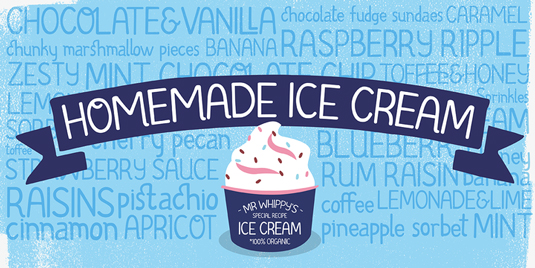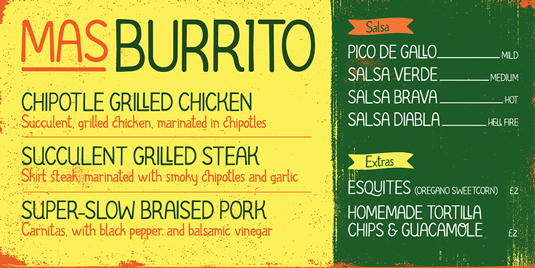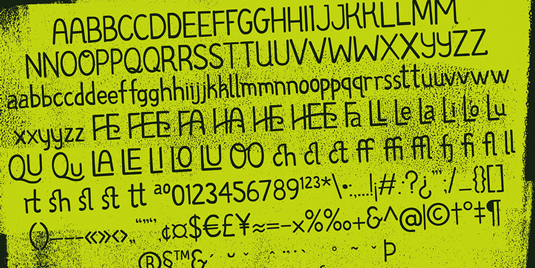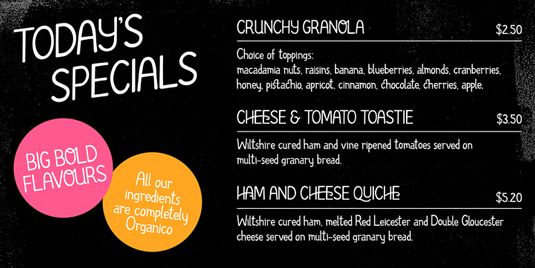
Font of the day: Organico
Organico by Stew Deane
This hand made font was developed by type designer Stew Deane. "I created Organico with the specific purpose of utilizing a number of alternates and ligatures to create a typeface that appeared truly organic," he comments. "There are a lot of fonts out there that mimic handwriting or brushes, but when you see two characters the same in the same word, or sentence, the idea of 'handmade' is lost.
"Organico has two of each upper and lowercase character with stylistic sets that utilizes them in a way that minimises seeing two of the same character in quick succession. The addition of stylistic ligatures adds to this handmade, bespoke aesthetic."